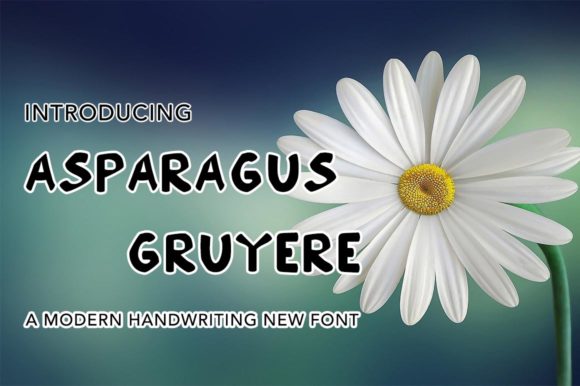
The Asparagus Gruyere Font: A Cute and Casual Display Font to Elevate Your Designs
I’ll never forget the design project that led me to discover the Asparagus Gruyere font. I was working on a branding project for a trendy new cafe, and I was struggling to find the perfect font to capture their playful and sophisticated vibe. That’s when I stumbled upon Asparagus Gruyere, a cute and casual display font that instantly brought my design to life!
So, what makes Asparagus Gruyere so special? Here are some things I love about this font:
- ✨ Unique and quirky character set that’s perfect for creative projects
- ✅ Easy to read, even at smaller sizes
- 💥 Highly versatile and can be used for a wide range of design applications
- 🎉 Fun and playful vibe that’s sure to add personality to your designs
Of course, no font is perfect, and Asparagus Gruyere does have a few small quirks:
- 🤔 Limited language support, so it’s not ideal for multilingual projects
- ⚠️ Some users may find the font a bit too casual or playful for certain applications
The Story Behind Asparagus Gruyere
Asparagus Gruyere was designed by a talented type designer who wanted to create a font that was both fun and functional. Inspired by the rolling hills of the countryside and the rich flavors of French cuisine, Asparagus Gruyere is a font that’s sure to add a touch of personality to your designs.
| Author | morningmondayy |
| Q: What type of projects is Asparagus Gruyere best suited for? | A: Asparagus Gruyere is perfect for creative projects, such as branding, packaging, and advertising. |
| Q: Is Asparagus Gruyere available in different languages? | A: Asparagus Gruyere has limited language support, so it’s not ideal for multilingual projects. |